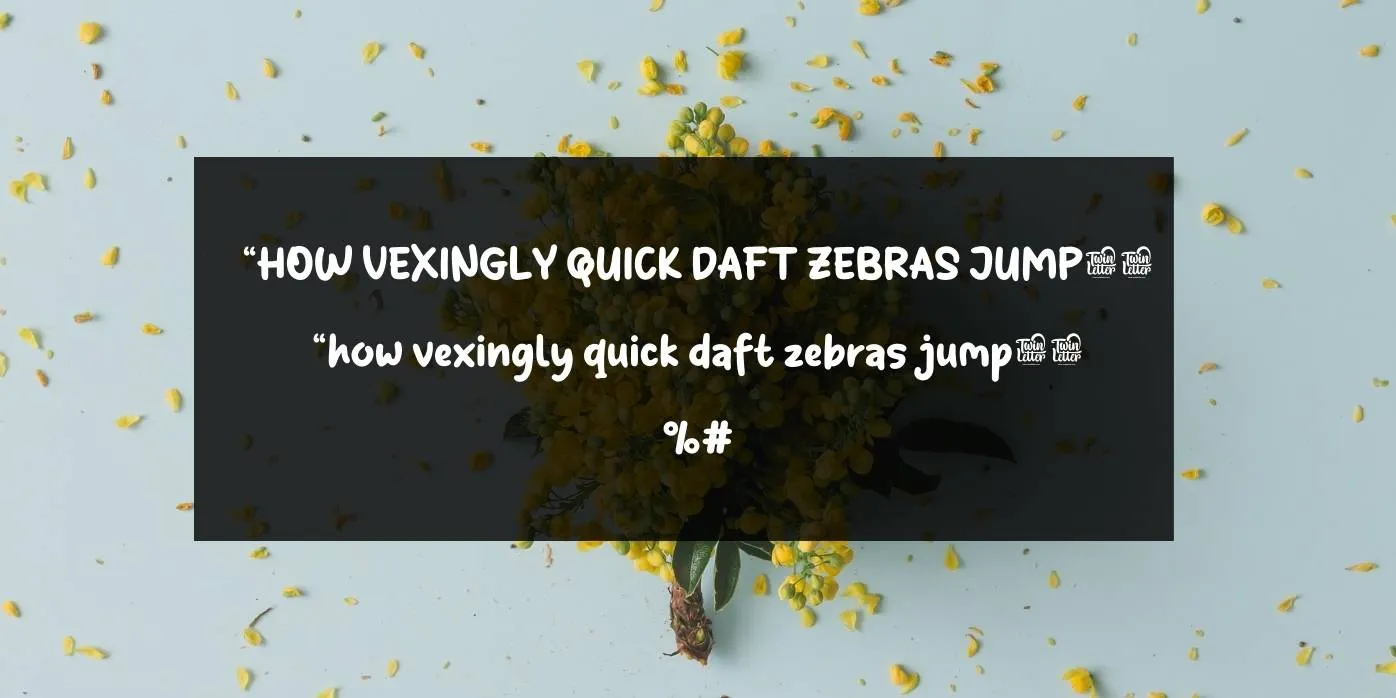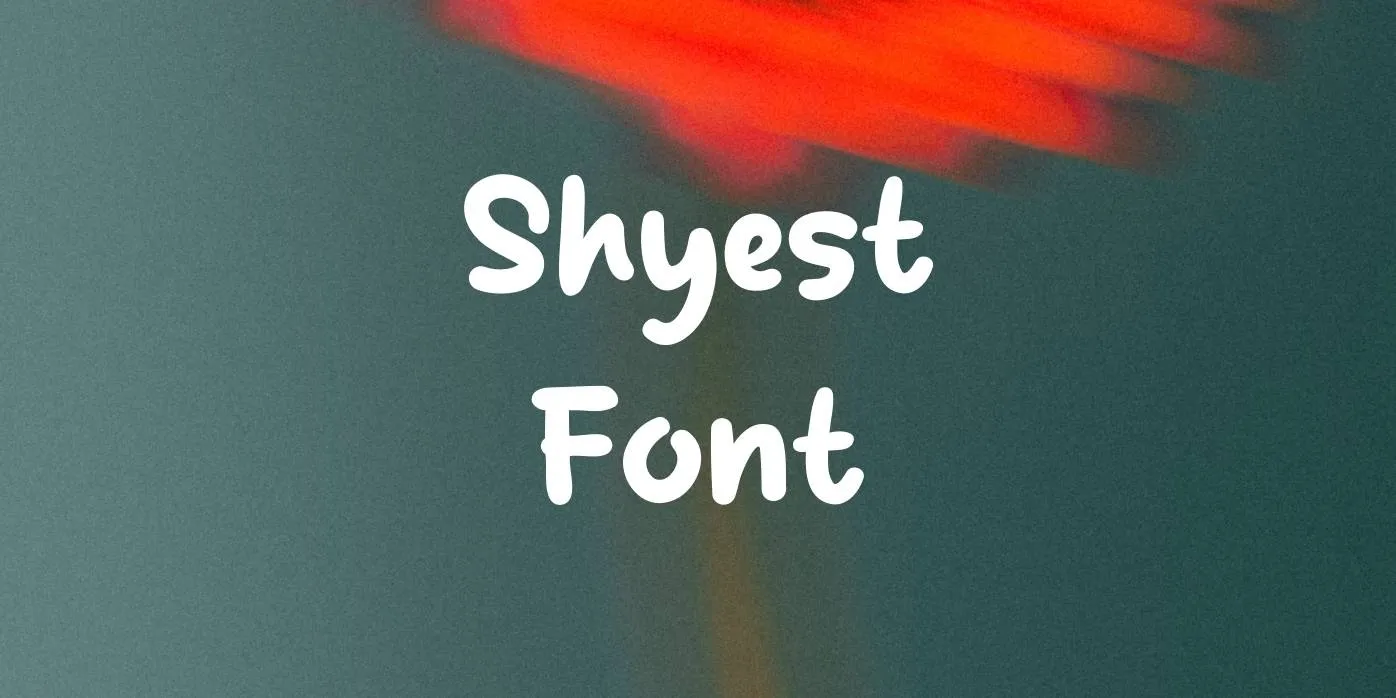
Shyest Font
Shyest Font is a very famous typeface that belongs to the fancy font. This awesome typeface belongs to the fancy family.  This typeface was created by Shyest Foundry. This typeface is perfect for those who are looking for a very stylish and sophisticated font. It has a very unique and different look that will definitely make your text stand out from the rest.
This typeface is also perfect for those who want to add a touch of class and elegance to their projects. This gorgeous typeface includes different styles and weights that you can use to create a very stylish and professional-looking design. You can also use the bourbor font which is closest to this font family. If you are looking for a very stylish and sophisticated font, then Shyest Font is definitely the best.